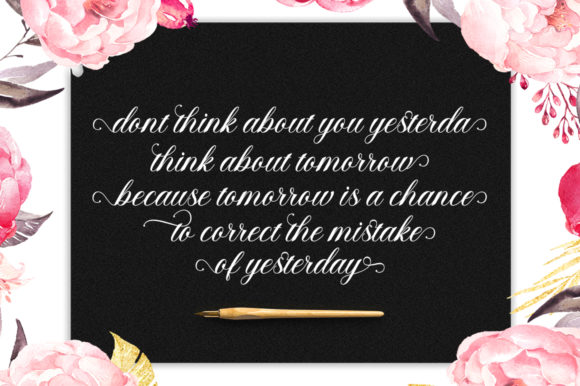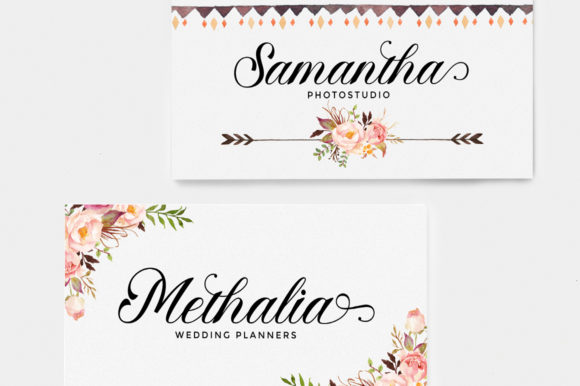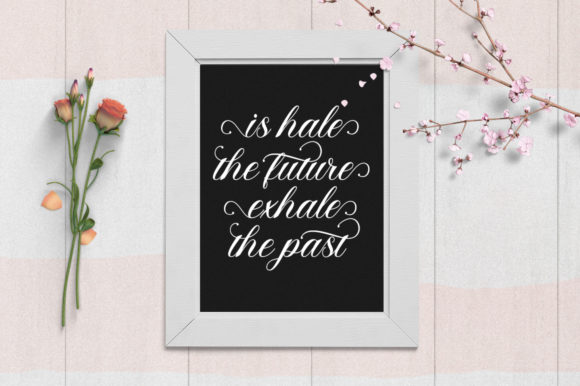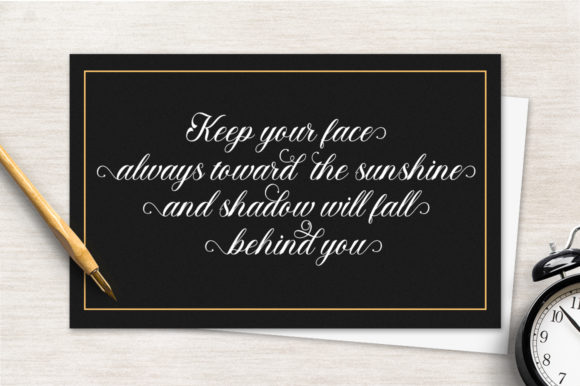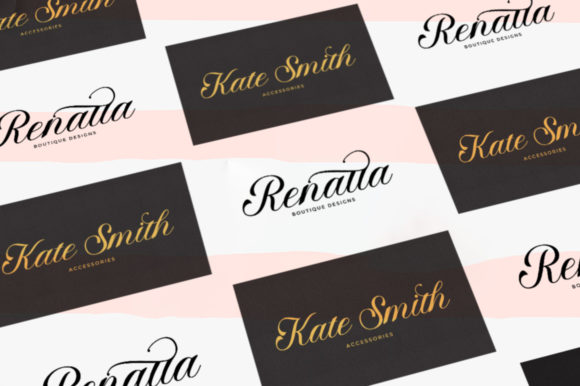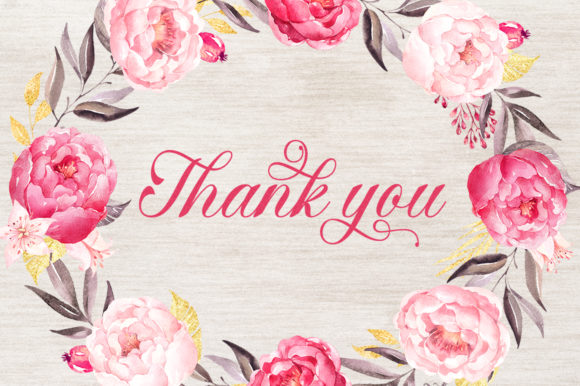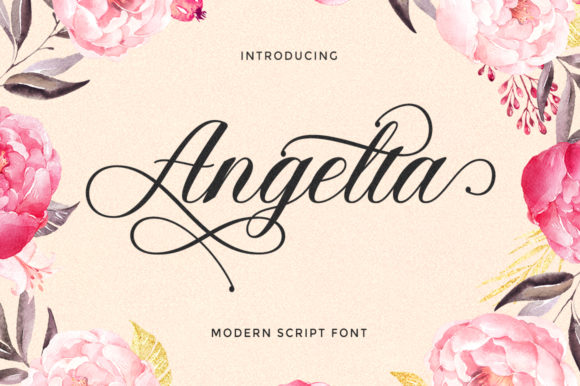
Introducing Angelta Font: Elevate Your Designs with Elegance and Sophistication
Are you a designer or crafter looking for a font that exudes elegance and sophistication? Look no further than Angelta Font, a beautiful and flowing handwritten font that is sure to take your projects to the next level. With its classy calligraphic influences and contemporary feel, Angelta is the perfect choice for anyone looking to add a touch of luxury to their designs.
What Makes Angelta Font So Special?
Angelta Font is a PUA (Private Use Area) encoded font, which means that it offers a vast range of glyphs and swashes that can be accessed with ease. This makes it incredibly versatile and allows you to experiment with different styles and combinations to create a truly unique look. Whether you’re working on a branding project, a wedding invitation, or a packaging design, Angelta Font provides the perfect tools to bring your vision to life.
Elegant and Flowing Handwritten Style
Angelta Font boasts an elegant and flowing handwritten style that is reminiscent of traditional calligraphy. Its smooth, cursive lines and delicate swashes evoke a sense of sophistication and refinement, making it perfect for designs that require a touch of luxury. At the same time, Angelta Font feels contemporary and fresh, ensuring that your designs stay modern and on-trend.
Key Features of Angelta Font
- PUA Encoded: Access all glyphs and swashes with ease, giving you complete creative control over your designs.
- Elegant and Flowing: Angelta Font features smooth, cursive lines and delicate swashes that add a touch of sophistication to any design.
- Classy Calligraphic Influences: Inspired by traditional calligraphy, Angelta Font brings a sense of luxury and refinement to your designs.
- Contemporary and Fresh: With its modern feel and versatile design, Angelta Font is perfect for a wide range of projects, from branding and advertising to packaging and more.
How to Use Angelta Font in Your Designs
Angelta Font is incredibly easy to use and can be incorporated into a variety of design projects. Here are a few ideas to get you started:
- Branding and Logo Design: Use Angelta Font to create a luxurious and sophisticated brand identity that stands out from the crowd.
- Wedding Invitations and Stationery: Add a touch of elegance and refinement to your wedding invitations, stationery, and other paper goods with Angelta Font.
- Packaging Design: Use Angelta Font to create eye-catching and luxurious packaging that showcases your product in the best possible light.
- Advertising and Marketing: Incorporate Angelta Font into your advertising and marketing materials to add a touch of sophistication and style.
Why Choose Angelta Font?
With so many fonts on the market, it can be difficult to choose the right one for your project. Here are just a few reasons why Angelta Font stands out from the crowd:
- Unique and Versatile: Angelta Font offers a wide range of glyphs and swashes, making it incredibly versatile and perfect for a variety of design projects.
- Elegant and Sophisticated: With its classy calligraphic influences and contemporary feel, Angelta Font is the perfect choice for designers and crafters looking to add a touch of luxury to their designs.
- Easy to Use: Angelta Font is incredibly easy to use and can be incorporated into a wide range of design projects, from branding and advertising to packaging and more.
In conclusion, Angelta Font is a beautiful and elegant handwritten font that is sure to elevate your designs to the highest levels. With its PUA encoded design, elegant and flowing style, and classy calligraphic influences, Angelta Font is the perfect choice for designers and crafters looking to add a touch of luxury and sophistication to their projects. So why wait? Fall in love with Angelta Font today and bring your designs to life in a whole new way!
| Font Name | Angelta Font |
| Author | LetterFreshStudio |